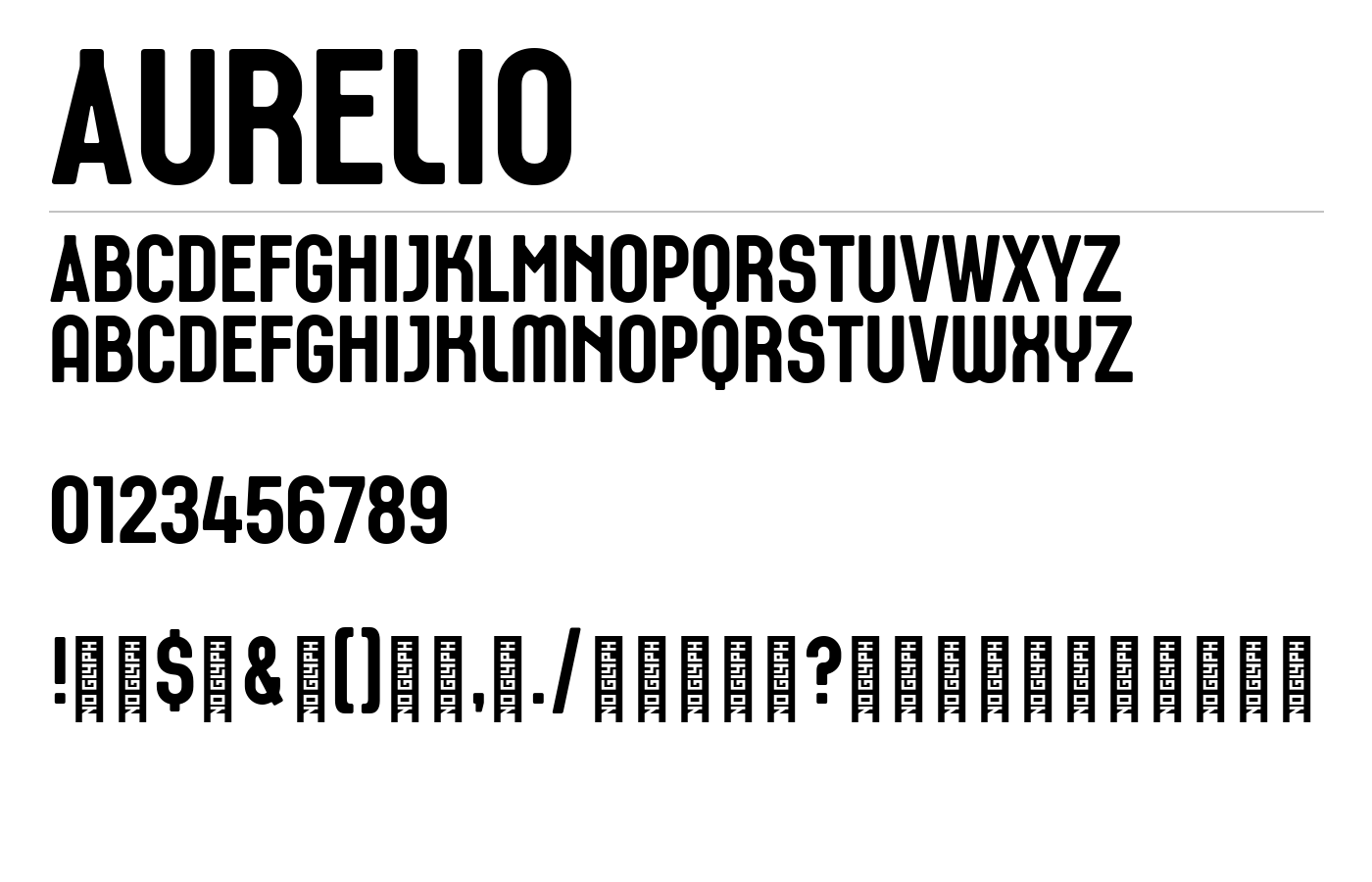
Aurelio is a bold, condensed sans serif font with a modern and geometric feel, featuring uniform stroke weight and tall, narrow letterforms that create a strong visual impact. Its clean, straightforward shapes make it ideal for headlines, logos, and branding where a confident and contemporary style is desired. This font works well in designs that need clear readability combined with a sleek, urban edge.
Aurelio Font